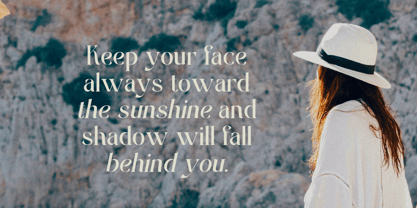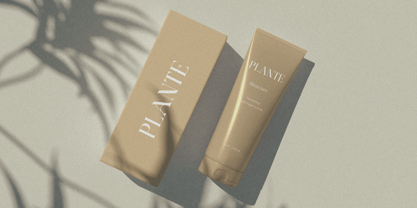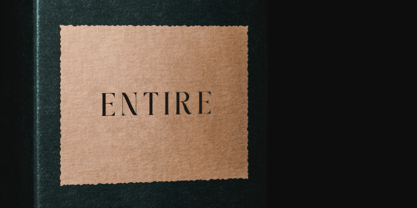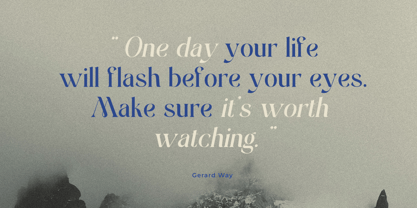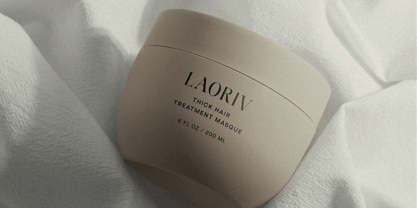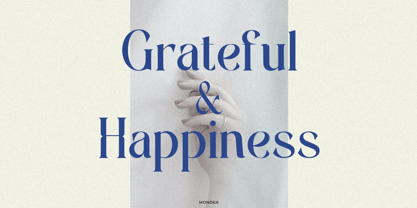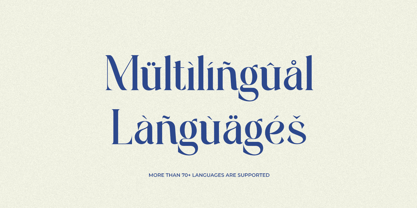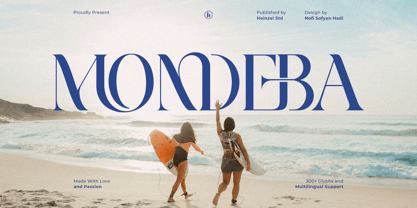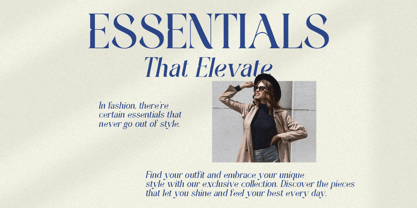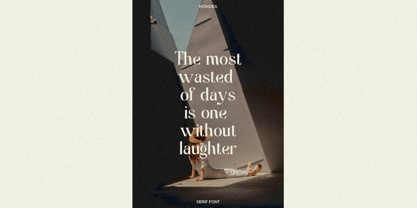
Mondeba
The Mondeba Font Family was designed by Nofi Sofyan Hadi and published by Heinzel Std. Mondeba contains 2 styles and family package options. More about this family
Mondeba Serif Font is a refined and modern serif typeface designed to bring elegance, clarity, and sophistication to your creative projects. With its graceful letterforms, high-contrast strokes, and stylish curves, Mondeba delivers a luxurious visual appeal that is perfect for branding, editorial design, logos, packaging, and high-end typography. Inspired by contemporary serif aesthetics, this font blends classic beauty with modern versatility, making it suitable for both digital and print applications. Crafted with attention to detail, Mondeba features over 300 glyphs and supports multiple languages, ensuring flexibility for global design needs. Its balanced proportions and unique character shapes create a distinctive presence while maintaining excellent readability. Whether used for headlines, fashion branding, or premium marketing materials, Mondeba elevates your design with a timeless and professional touch.